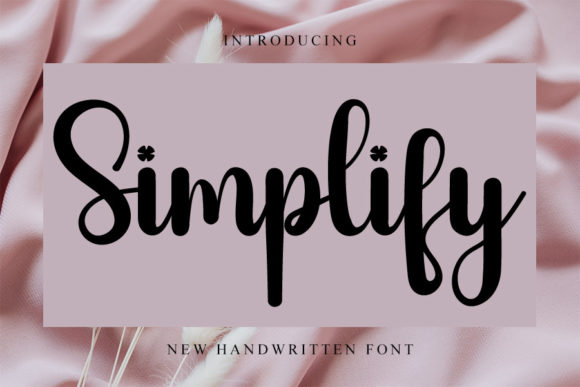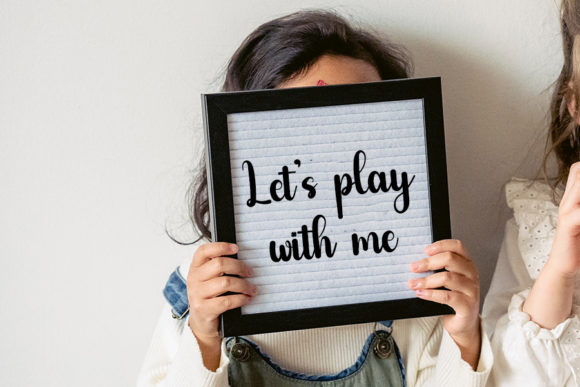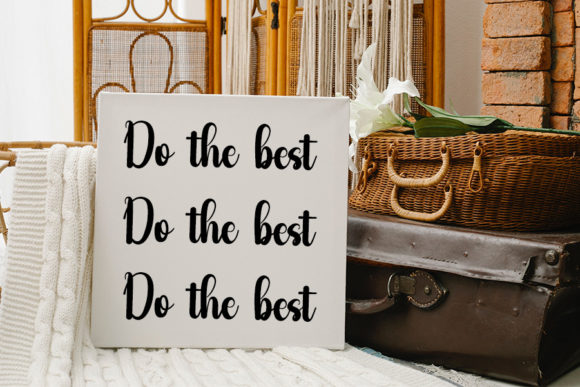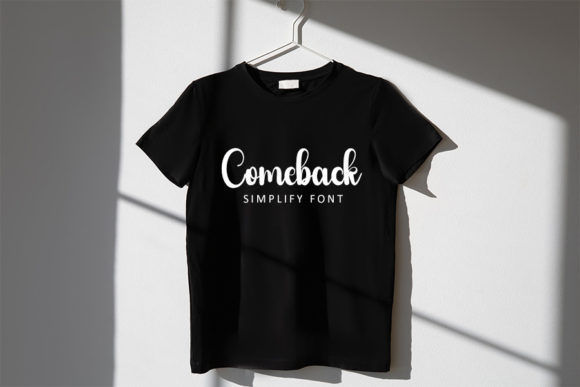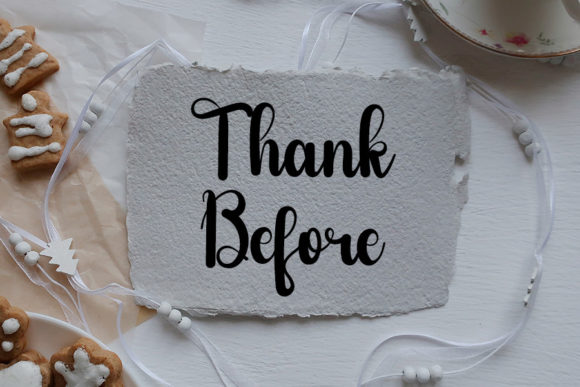
Simplify Font
“Simplify” is a superb handwritten font designed to make your work stand out with its elegant and curvy lines. This typeface is crafted with a focus on sophistication and versatility, making it perfect for a variety of creative projects. Whether you’re working on product packaging, branding, magazine covers, social media graphics, wedding materials, or any design where you want to express words above the background, “Simplify” aims to elevate your work.
The elegant and curvy lines of “Simplify” bring a sense of grace and style to your text, enhancing the overall aesthetic of your designs. Its handwritten quality adds a personal touch, making it suitable for projects that require a balance of elegance and authenticity.
Whether you’re creating a brand identity, designing for social media, or working on wedding materials, “Simplify” is versatile enough to adapt to different contexts. Its clean lines and elegant curves contribute to a sophisticated look that resonates across various design applications.
The font’s readability and elegant design ensure that your message is conveyed with clarity and style. “Simplify” can be a valuable asset for designers looking to add a touch of refinement to their projects, making them visually appealing and memorable.
In summary, “Simplify” is more than just a font; it’s a superb handwritten typeface that enhances the elegance of your designs. Its versatility and stylish lines make it suitable for a range of projects, allowing you to express words above the background with a touch of sophistication. Consider incorporating “Simplify” into your next product packaging, branding, or social media project, and let its elegant and curvy lines elevate the visual impact of your work.